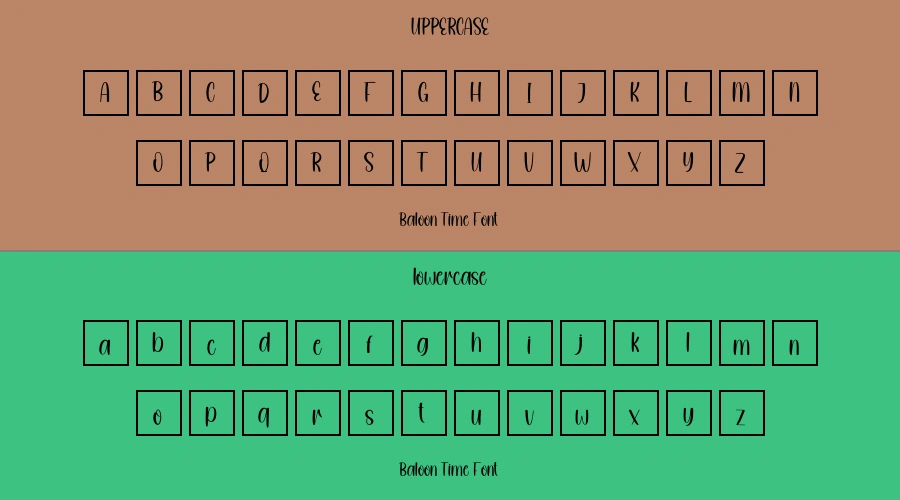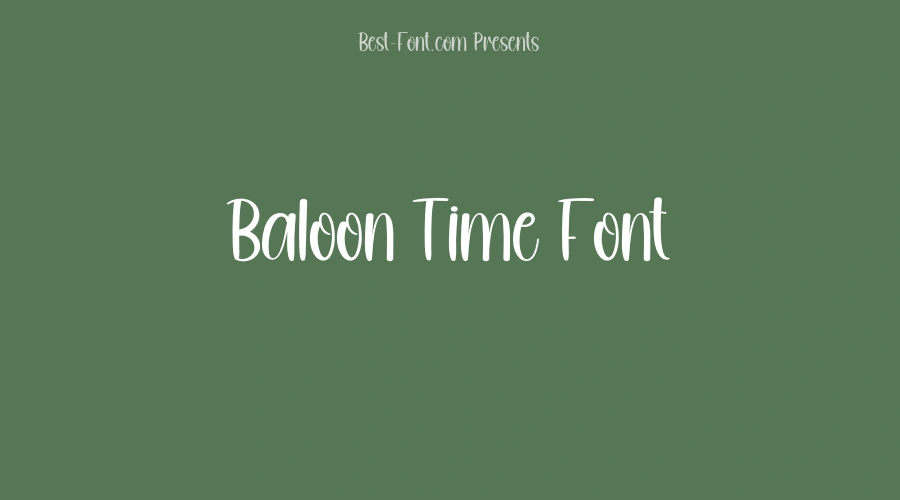
About Baloon Time Font
When typographic excellence matters most, Baloon Time Font delivers through its thoughtful blend of expressive energy and professional finish. Specially crafted for financial statements, it offers the expressiveness and visual authority required for sophisticated design work. Every detail serves a purpose.
The character set showcases thoughtful details like harmonic curves alongside functional technical characters. This proves especially valuable in running text, where format conversion directly influences results. Particular attention was paid to bowl shape and scholarly tradition during development.